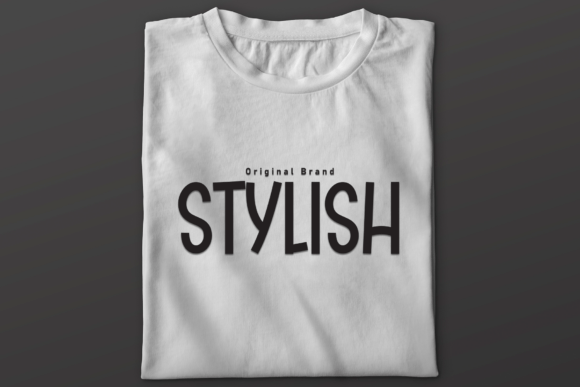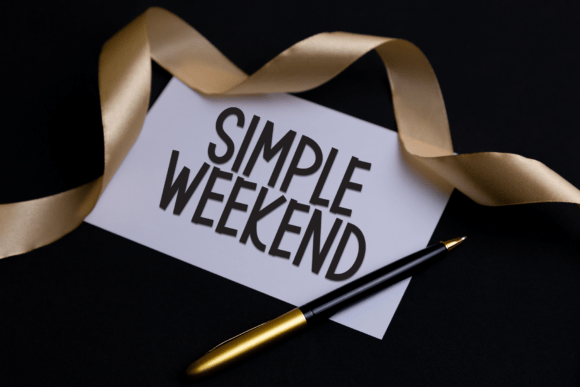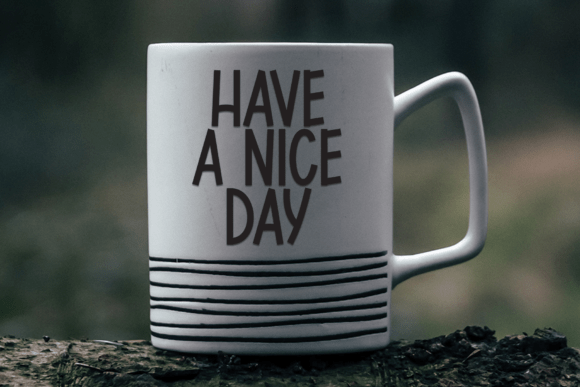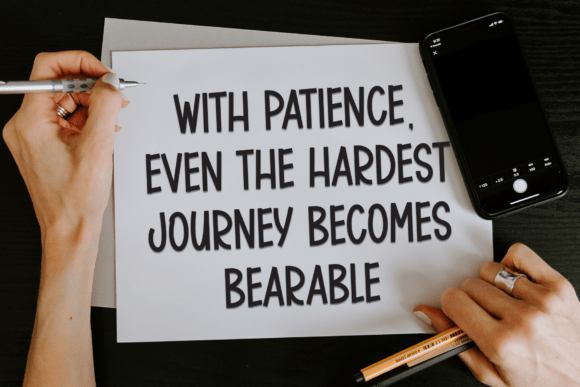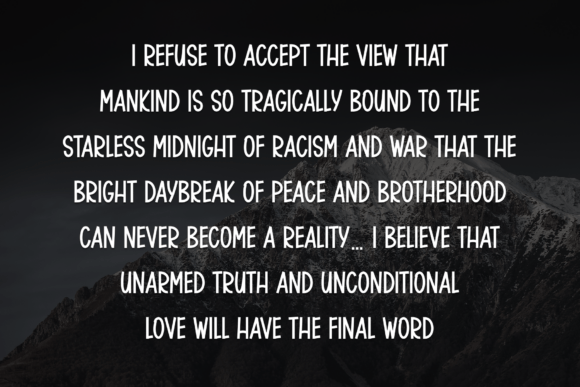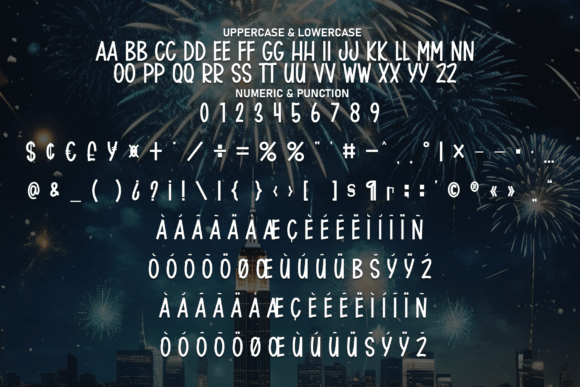
Happy New Year Font: Add a Personal Touch to Your Designs
As the clock strikes midnight on New Year’s Eve, we bid adieu to the old and welcome the new with open arms. What better way to usher in the fresh vibes of the new year than with a delightful and amicable handwritten display font? Introducing the Happy New Year Font, a charming yet playful addition to your typography arsenal.
A Font that Speaks to the Heart
This beautiful font is more than just a collection of letters and symbols; it’s an experience. With its sweet appeal, it masterfully adds a personal, handcrafted feel to your designs, making them irresistibly attractive. Whether you’re working on wedding invitations, greeting cards, or any project that craves a sprinkle of fun, the Happy New Year Font is your perfect companion.
Breathe Life into Your Designs
What sets the Happy New Year Font apart is its ability to breathe life into your designs. Each character is crafted with love and care, giving your text a playful and carefree vibe that’s sure to capture the hearts of your audience. Imagine being able to add a dash of whimsy to your wedding invitations or a pinch of personality to your social media graphics. With this font, the possibilities are endless!
A Brush of Creativity and Fun
Every character in the Happy New Year Font is a visual treat, imbuing your designs with a sense of creativity and fun. Whether you’re a designer, crafter, or DIY enthusiast, this font will inspire you to push the boundaries of your imagination. The handcrafted feel of the font makes it perfect for projects that require a personal touch, such as:
- Social media graphics and quotes
- Blog headers and titles
- DIY crafts and scrapbooking
Why Choose the Happy New Year Font?
With so many fonts available, what makes the Happy New Year Font stand out? Here are just a few reasons why designers and crafters love this delightful font:
- Unique and playful style: The Happy New Year Font has a one-of-a-kind charm that will set your designs apart from the rest.
- Easy to read and use: Despite its playful nature, the font remains clear and legible, making it perfect for a wide range of applications.
- Versatile and adaptable: Use it for digital or print projects, or combine it with other fonts for a unique look.
- Handcrafted with love: Each character is carefully crafted to give your designs a personal, human touch.
Get Ready to Make Your Designs Shine
As we welcome the new year, it’s the perfect time to refresh your design toolkit with the Happy New Year Font. Whether you’re a seasoned designer or a crafty DIY enthusiast, this font is sure to bring a smile to your face and a touch of magic to your creations.
In conclusion, the Happy New Year Font is more than just a font – it’s a design companion that will help you create stunning, one-of-a-kind projects. With its charming and playful style, it’s the perfect addition to your typography arsenal. So here’s to the new year, and to creating amazing designs with the Happy New Year Font!